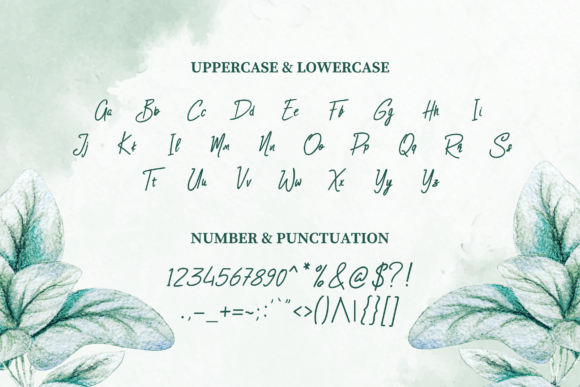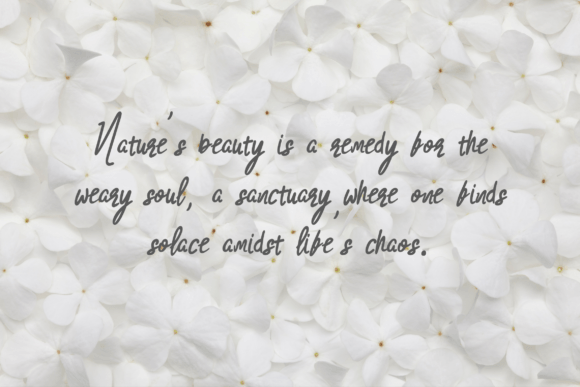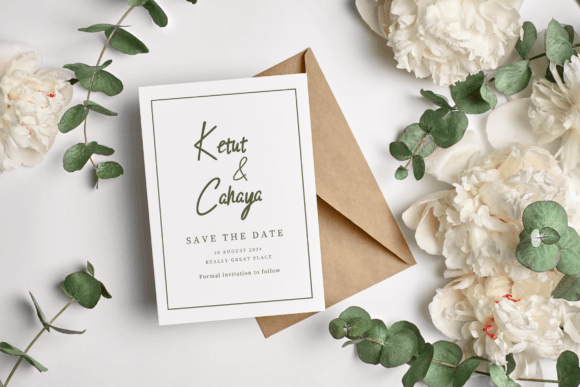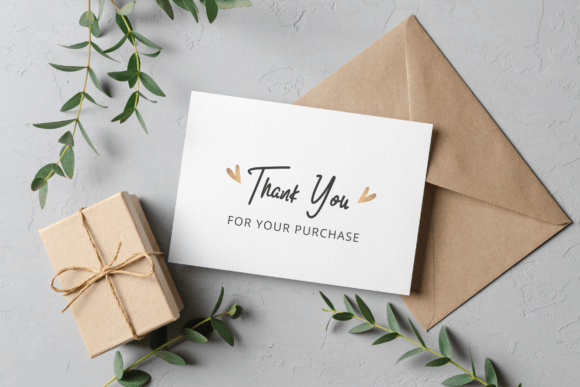
Aksara Dokter Font: The Ultimate Handwritten Companion for Designers
Have you ever been stuck on a design project, searching for that perfect font to convey the right message? You know, that moment when you finally stumble upon a font that speaks to your creative soul? For many designers, that moment came when they discovered the Aksara Dokter Font.
This beautiful handwritten font boasts elegant lettering that exudes warmth and approachability. Its unique design makes it a standout choice for any project, from advertising campaigns to editorial content. Whether you’re aiming to create a friendly and inviting atmosphere or simply need a font that speaks to your brand’s personality, the Aksara Dokter Font is an invaluable asset for designers.
With its versatility and charm, the Aksara Dokter Font is a must-have in every designer’s toolkit. Whether you’re a seasoned pro or just starting out, this font is sure to elevate your designs and leave a lasting impression on your audience.
Aksara Dokter Font Key Features
- Font Family: Aksara Dokter is a unique font designed for medical purposes, providing a clear and readable font for doctors and medical professionals.
- Language Support: The font supports multiple languages, including Indonesian and English, making it a versatile choice for medical professionals worldwide.
- Unique Characteristics: Aksara Dokter font features a clean and modern design, with distinct letterforms and clear typography, making it easier to read and understand medical text.
Aksara Dokter Font Review
Overall, I think the Aksara Dokter Font is a great addition to any medical-themed design. ✨ Its unique script style and rounded edges give it a friendly, approachable feel that works well in a variety of contexts.
Some of the things that really stand out about this font are:
- Its versatility: Aksara Dokter works well in both digital and print designs, making it a great choice for a wide range of applications.
- Its readability: Despite its script style, the font is surprisingly easy to read, even at smaller font sizes.
- Its customizability: The font comes with a range of weights and styles, making it easy to find the perfect fit for your design.
- ⚠️ Limited language support: While the font is designed specifically for medical contexts, it may not be suitable for non-English language designs.
- ⚠️ Not ideal for headlines: Due to its script style, Aksara Dokter may not be the best choice for headlines or titles, where a more bold or attention-grabbing font is needed.
Overall, I think the Aksara Dokter Font is a great choice for medical designs, but it’s not a one-size-fits-all solution. With a little creativity and experimentation, it can be a valuable addition to your design toolkit.
For the best results, use Aksara Dokter Font in conjunction with other Southeast Asian fonts to create a cohesive and culturally relevant design.
1. Creating cultural or educational materials.
2. Designing signage or branding for Southeast Asian businesses.
3. Adding a touch of cultural flair to digital or print materials.